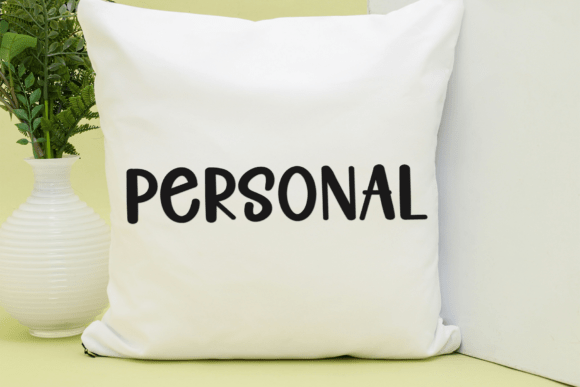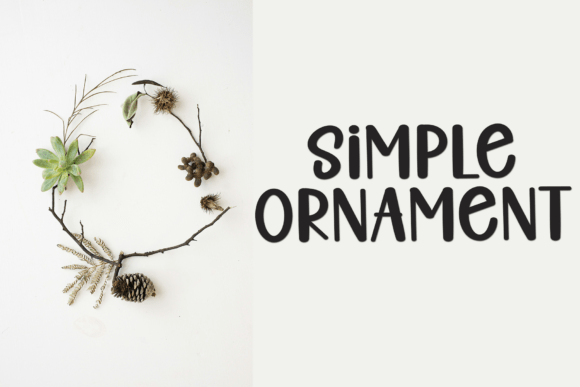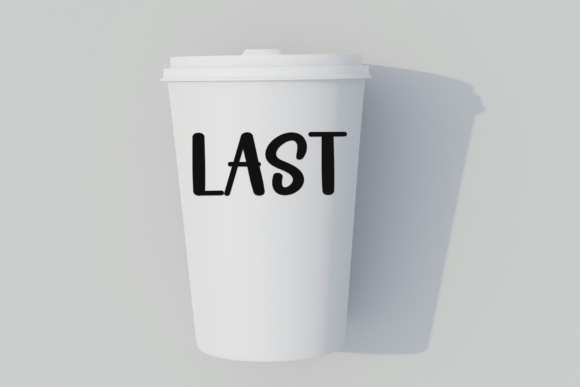
Designer Music Font: A Playful & Cute Handwritten Font for Crafts
About the Designer Music Font
Explore the possibilities with Designer Music Font, a font that offers both beauty and functionality. Designer Music is a casual and creative font that exudes warmth and friendliness. Its round, playful strokes create a relaxed and approachable feel, perfect for personal projects, invitations, and social media graphics. The font’s charming, hand-drawn aesthetic adds a fun and unique touch to any design.
Designer Music excels in applications requiring a friendly and approachable feel, such as logos for cafes or children’s brands, invitations, short social media posts, and packaging for artisanal products. Its playful nature makes it ideal for headlines and short, impactful statements. However, its casual style is less suitable for body text or lengthy content, where readability becomes paramount. Avoid using it for UI elements or situations needing high levels of professionalism.
Pairing Designer Music with a clean sans-serif like Lato or Open Sans provides a strong contrast, grounding its informality. For a more playful combination, consider pairing it with a quirky, geometric sans-serif font. A classic serif like Garamond or a delicate script font could add elegance, balancing its casual charm in applications like wedding invitations.
The font’s core personality is undeniably playful and approachable, projecting warmth and creativity. This makes it well-suited for brands focused on fun, family, or handmade goods, conveying a sense of approachability and charm.
Designer Music Font Usage Examples
Designer Music Font Example